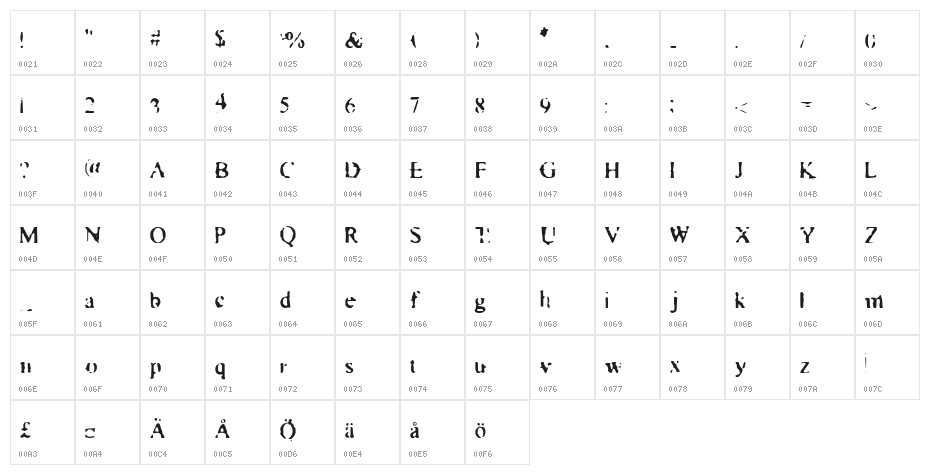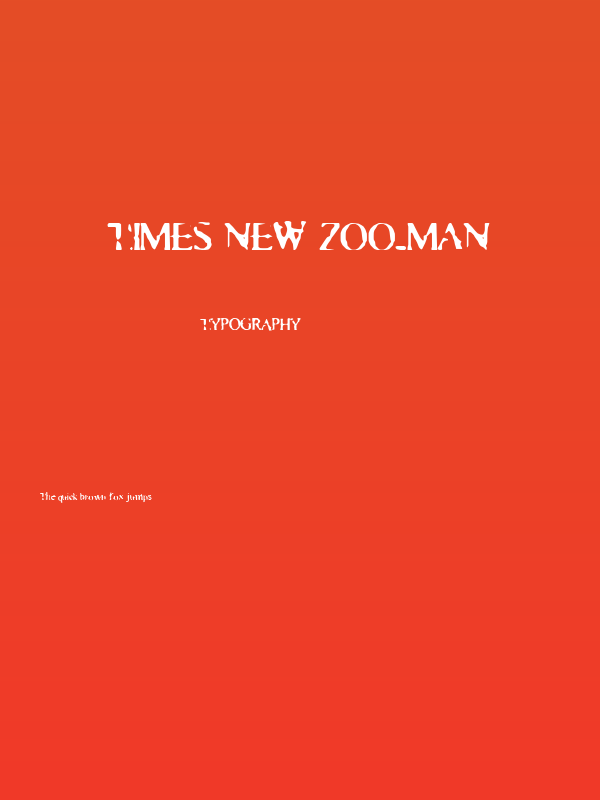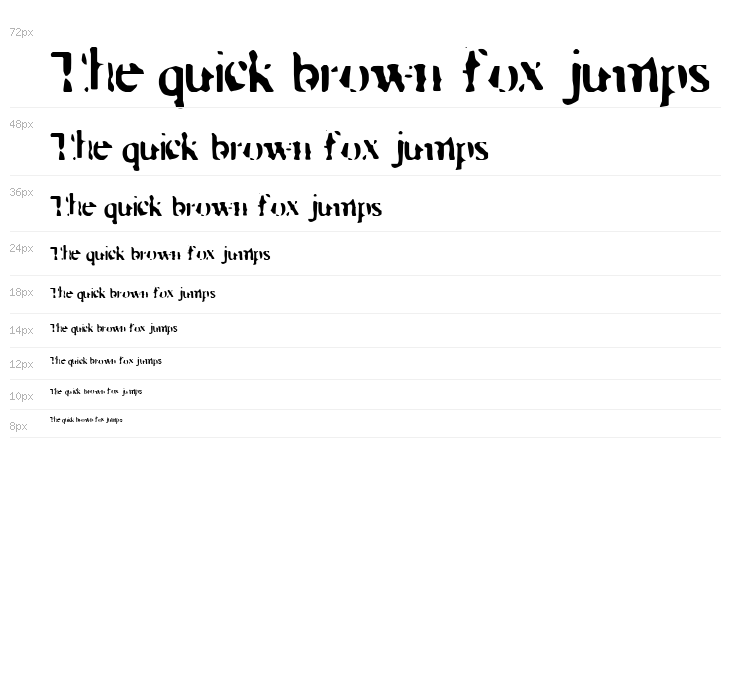
Times New Zoo-man Font
Times New Zoo-man Description
This font features a highly decorative and artistic style, characterized by its unique cut-out patterns within each character. The uppercase letters have a bold presence with intricate negative spaces that create a dynamic visual effect. The lowercase letters maintain this artistic flair, offering a cohesive look across the alphabet. Numbers and special characters follow the same design principles, ensuring consistency. The font's overall appearance is both modern and avant-garde, making it suitable for creative and unconventional projects.
| Overall Style | Modern, Avant-garde |
| Use Case | Headlines, Logos, Artistic projects |
| Proposed Projects | Ideal for artistic posters, album covers, creative branding, and unique invitations. |